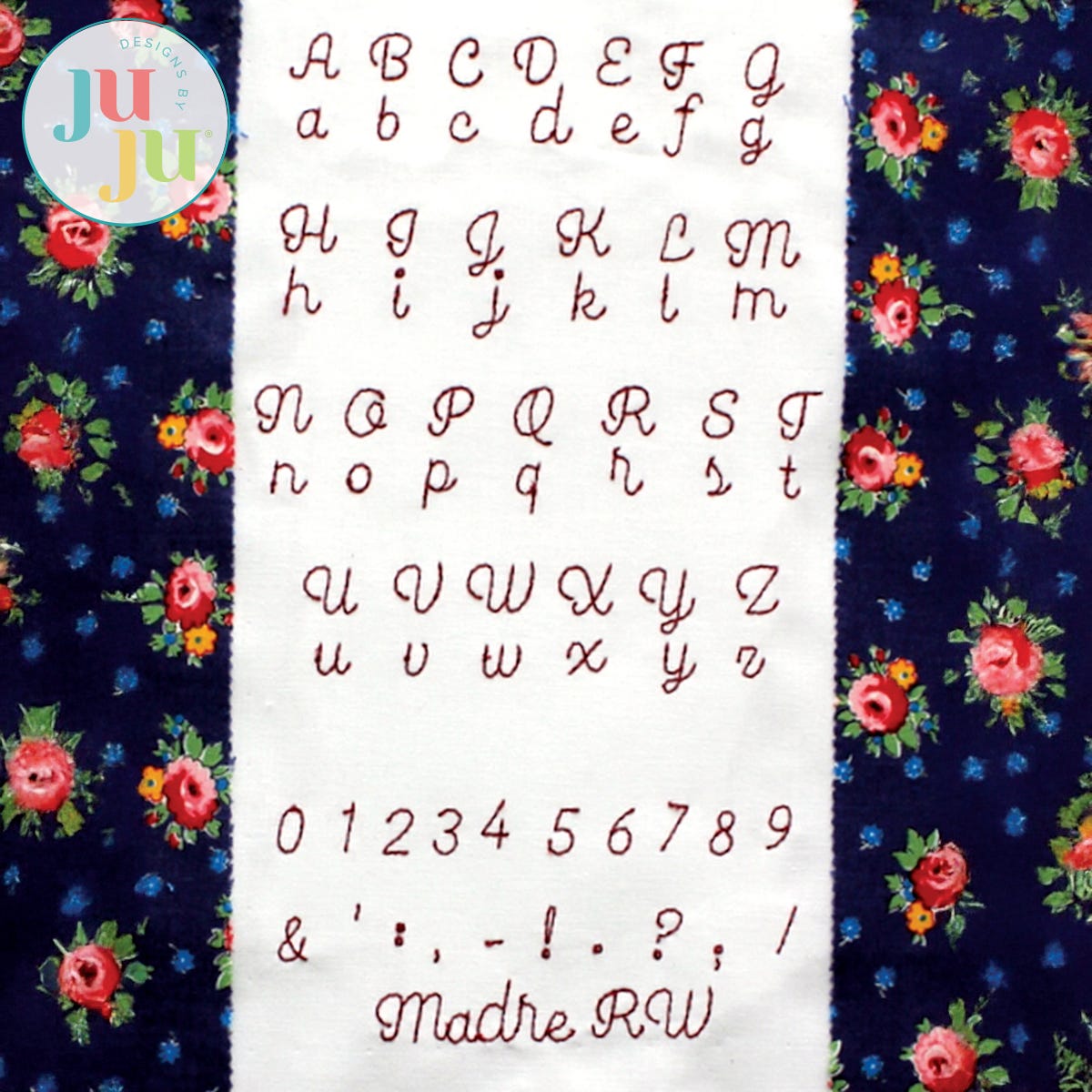
Madre Redwork Embroidery Font by Oma's Place
This font was designed with greeting cards and large labels in mind. It stands about 0.40" tall and is a clear, clean looking font. Every attempt has been made to have each letter start on the left and end on the right. However, there are some letters where this was not possible resulting in some but not many jumps between letters. Comes in 10 different machine formats as well as in the bx format for Embrilliance Express users.